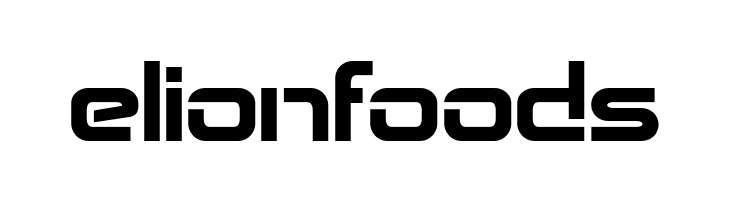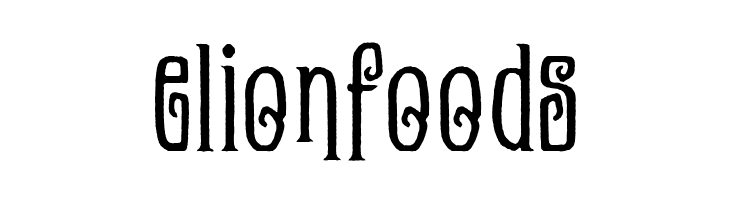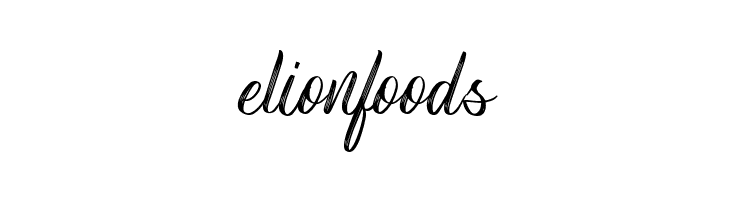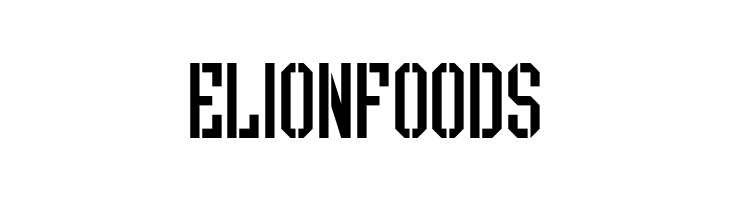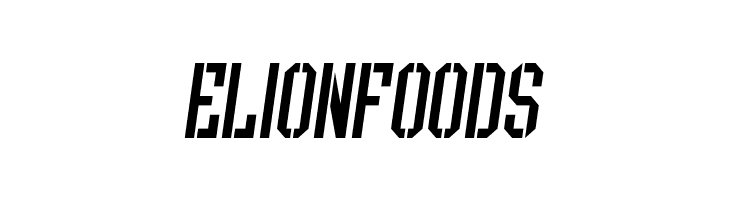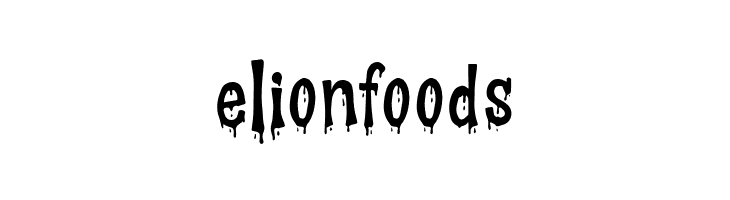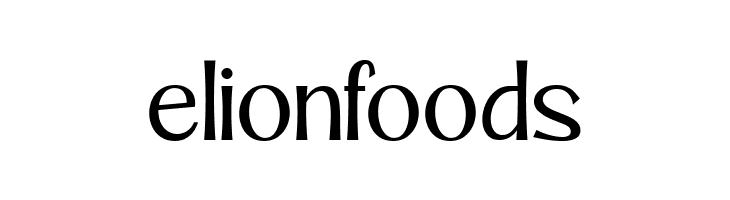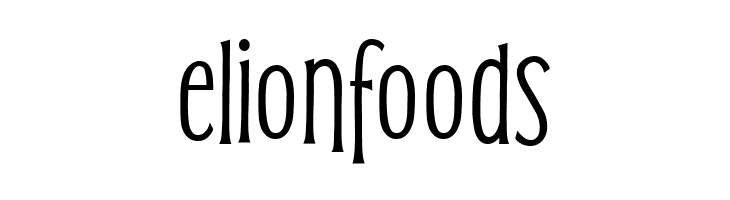
A classic serif font with elegant, refined letterforms and pronounced serifs.
A modern, geometric font with bold, angular characters and consistent stroke width.
A hand-drawn, distressed font with whimsical, vintage charm.
An elegant, flowing script font with graceful curves and ornate flourishes.
A bold, angular italic font with a dynamic and energetic style.
A rough, hand-drawn font with a vintage, distressed look.
A bold, dripping font with a spooky, horror-themed style.
A modern-vintage serif font with playful curves and artistic details.
A whimsical and artistic font with elongated, irregular letterforms and dynamic stroke widths.